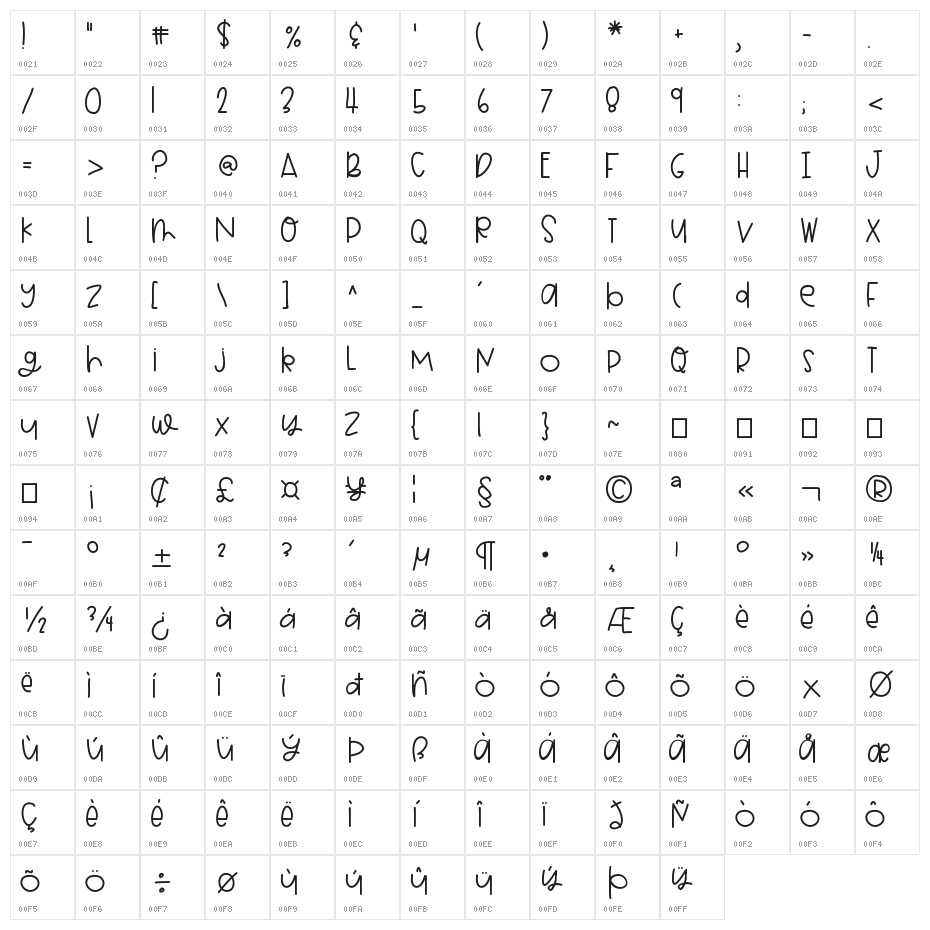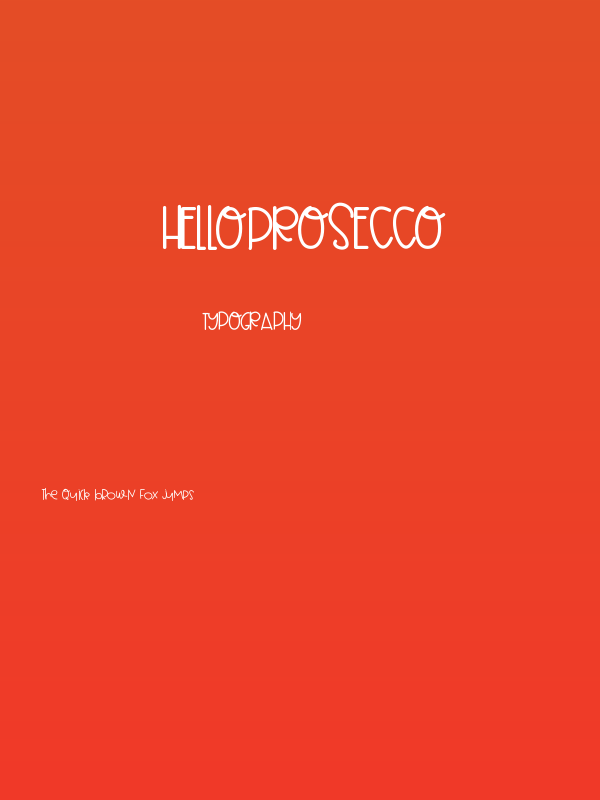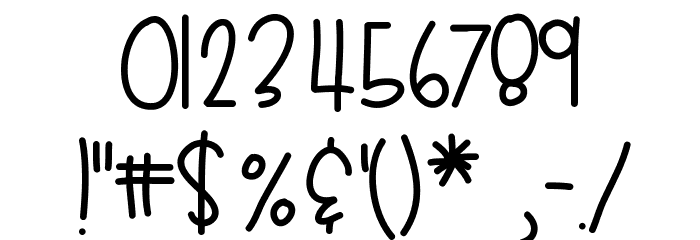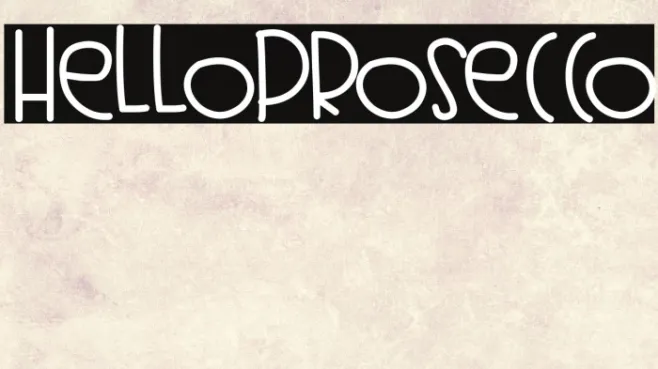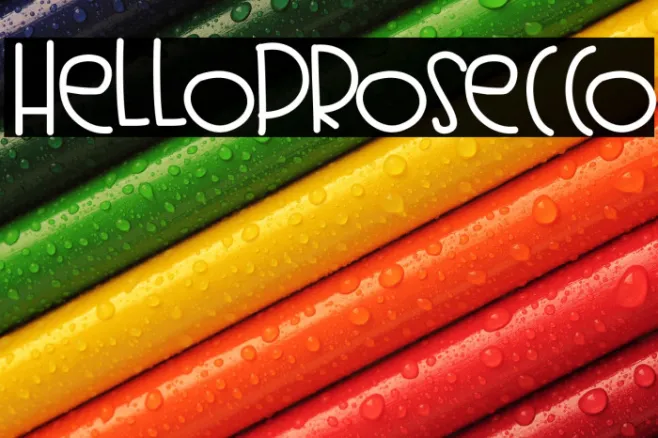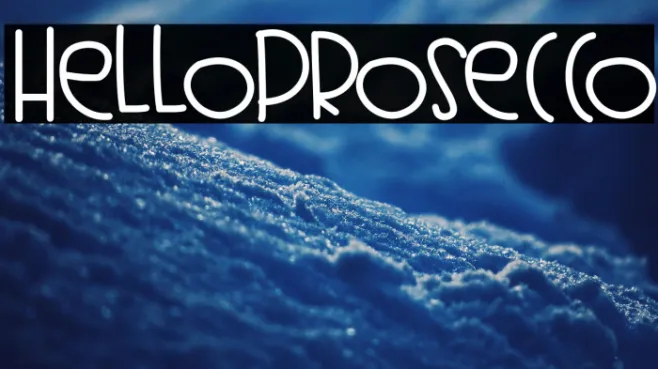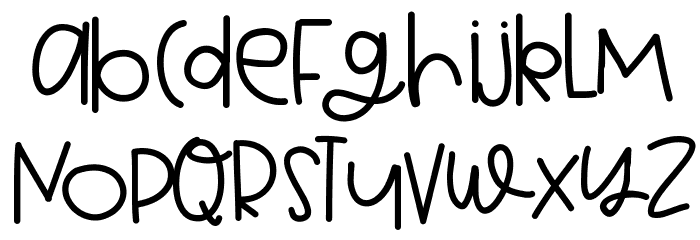
HelloProsecco Font
HelloProsecco Description
This font is a playful and whimsical handwritten typeface that exudes a casual and friendly vibe. The letters are characterized by their rounded edges and slightly irregular shapes, giving them a hand-drawn appearance. The uppercase and lowercase letters maintain a consistent style, with a slight slant that adds to the informal feel. The numerals are equally playful, with a unique flair that complements the overall design. Special characters are included, maintaining the same quirky style. This font is perfect for projects that require a personal touch or a fun, approachable aesthetic.
| Proposed Projects | Ideal for greeting cards, children's books, playful branding, and social media graphics. |